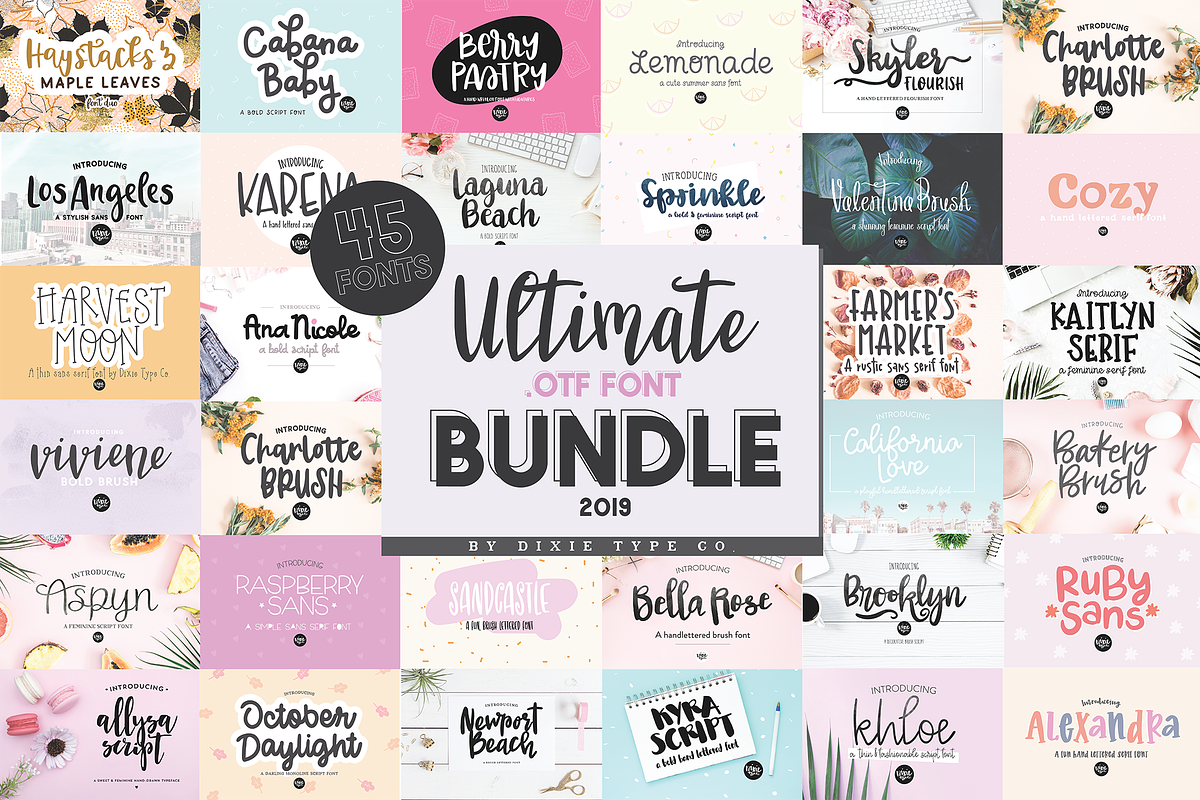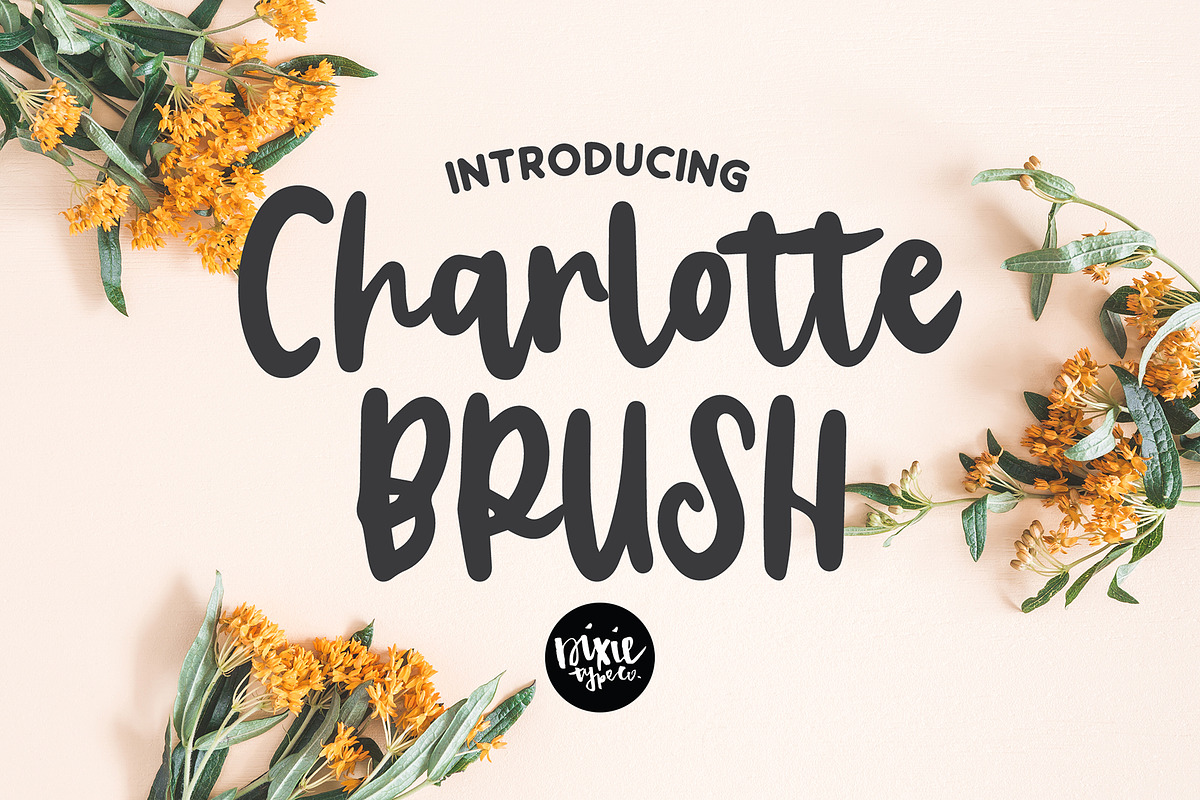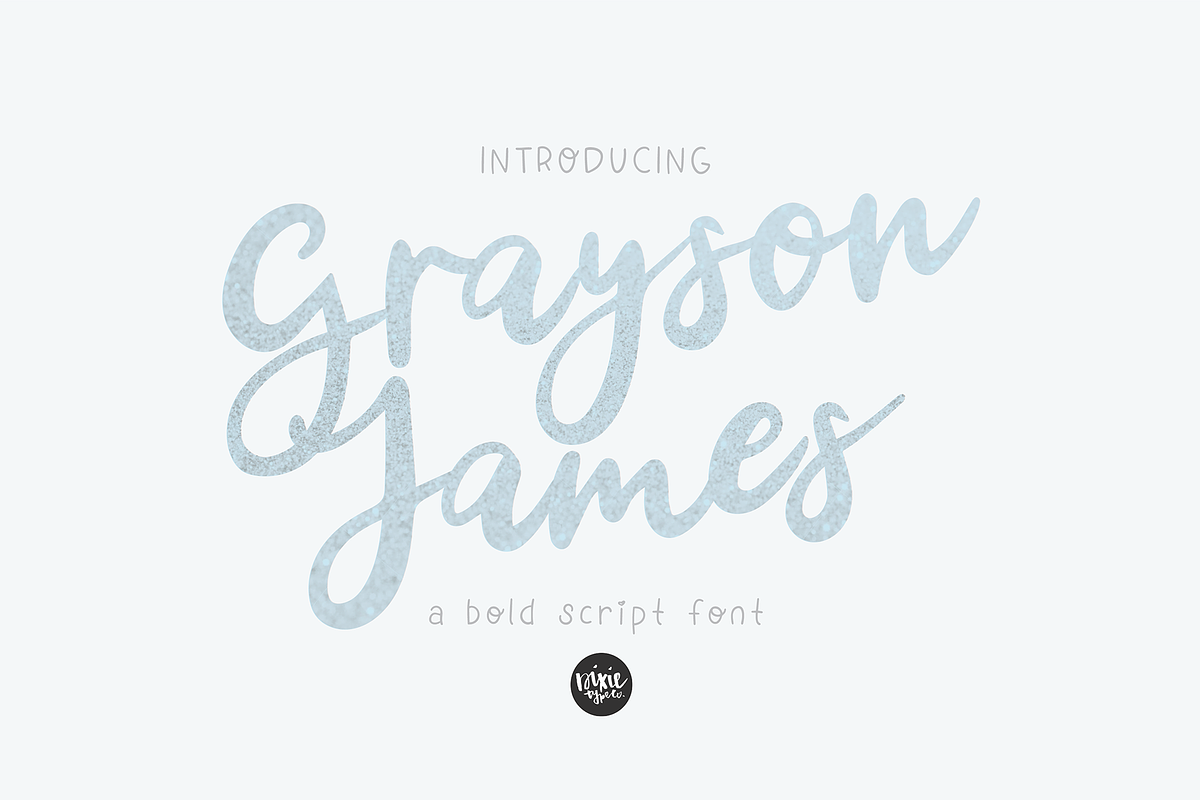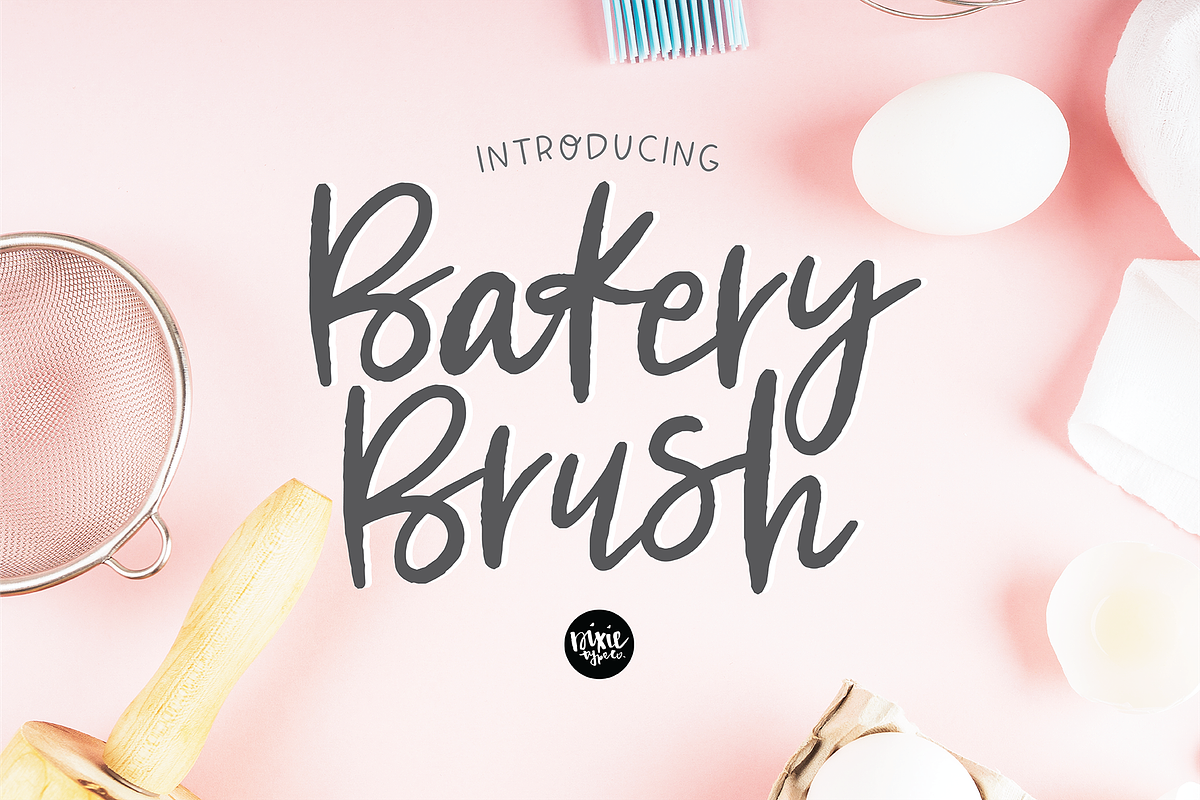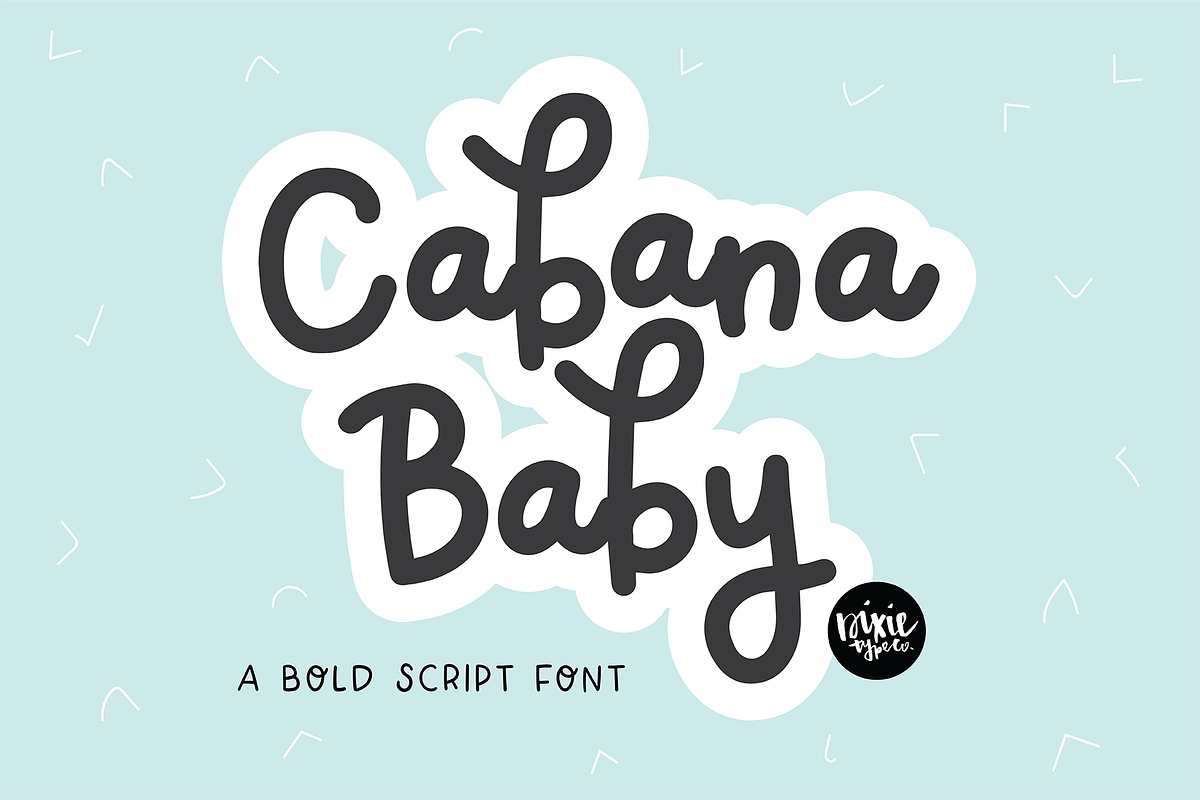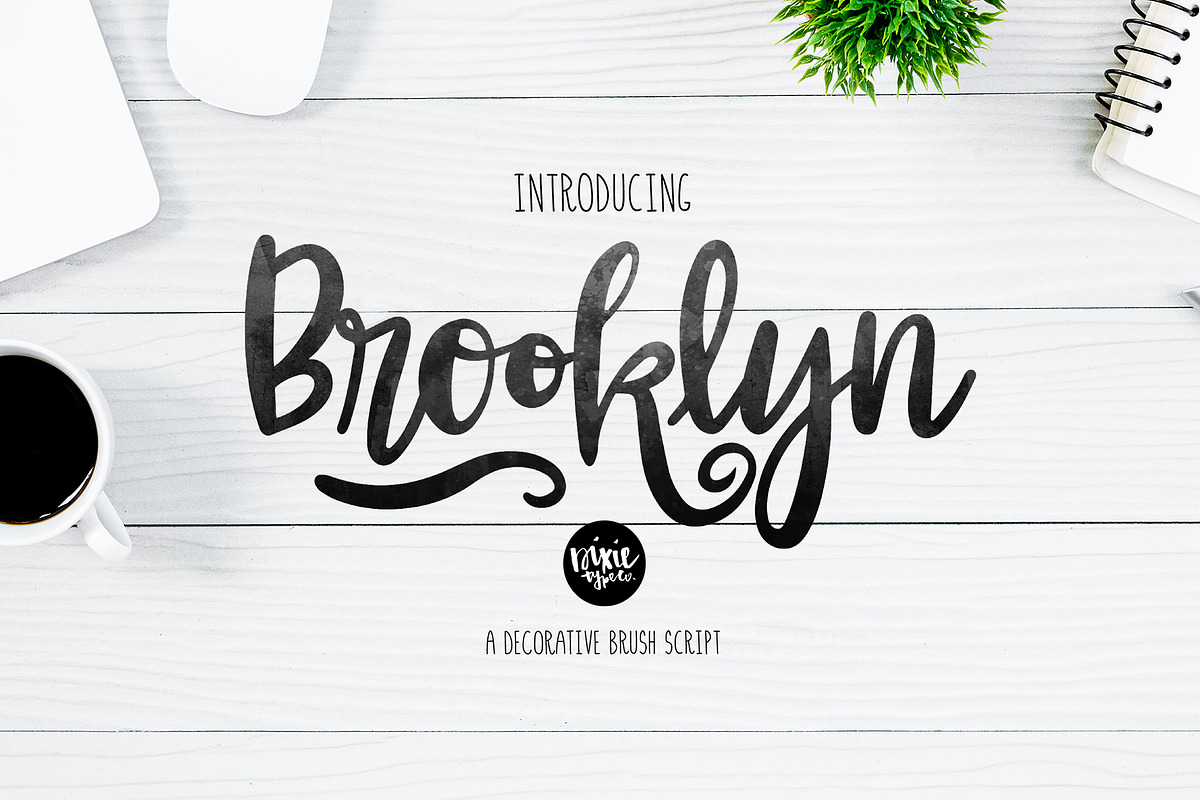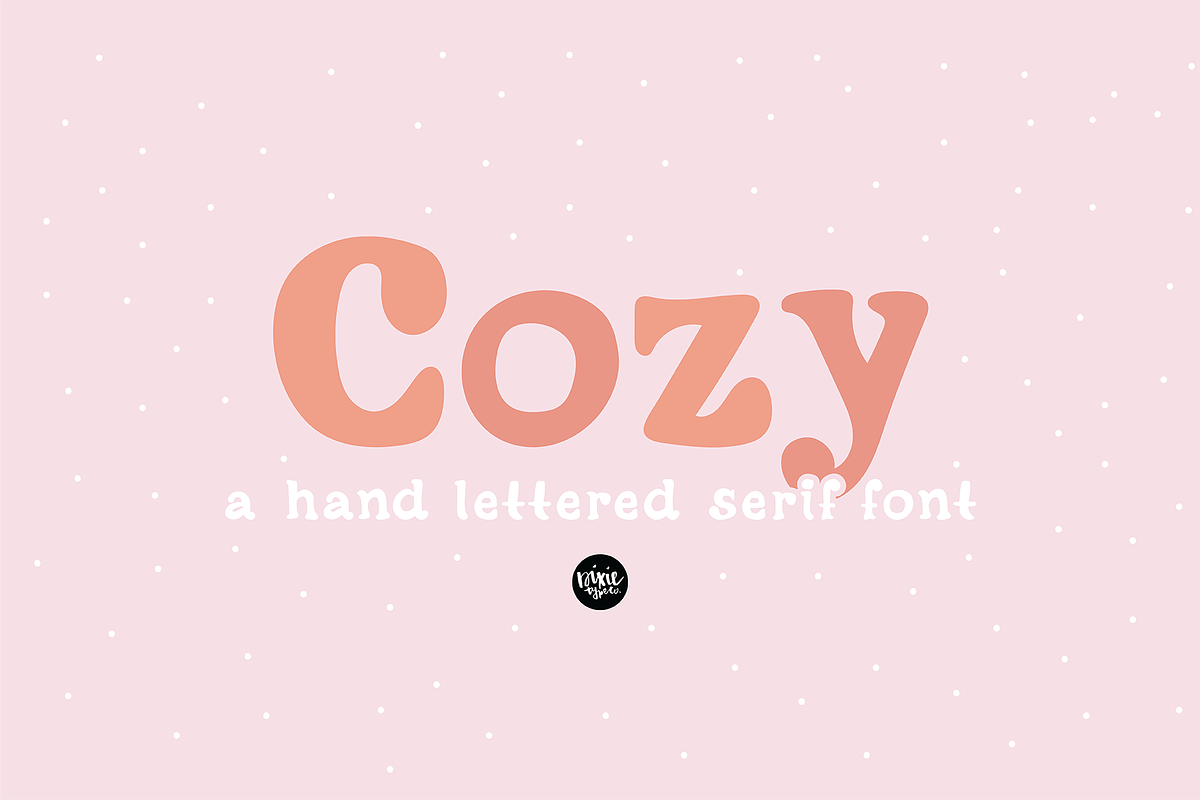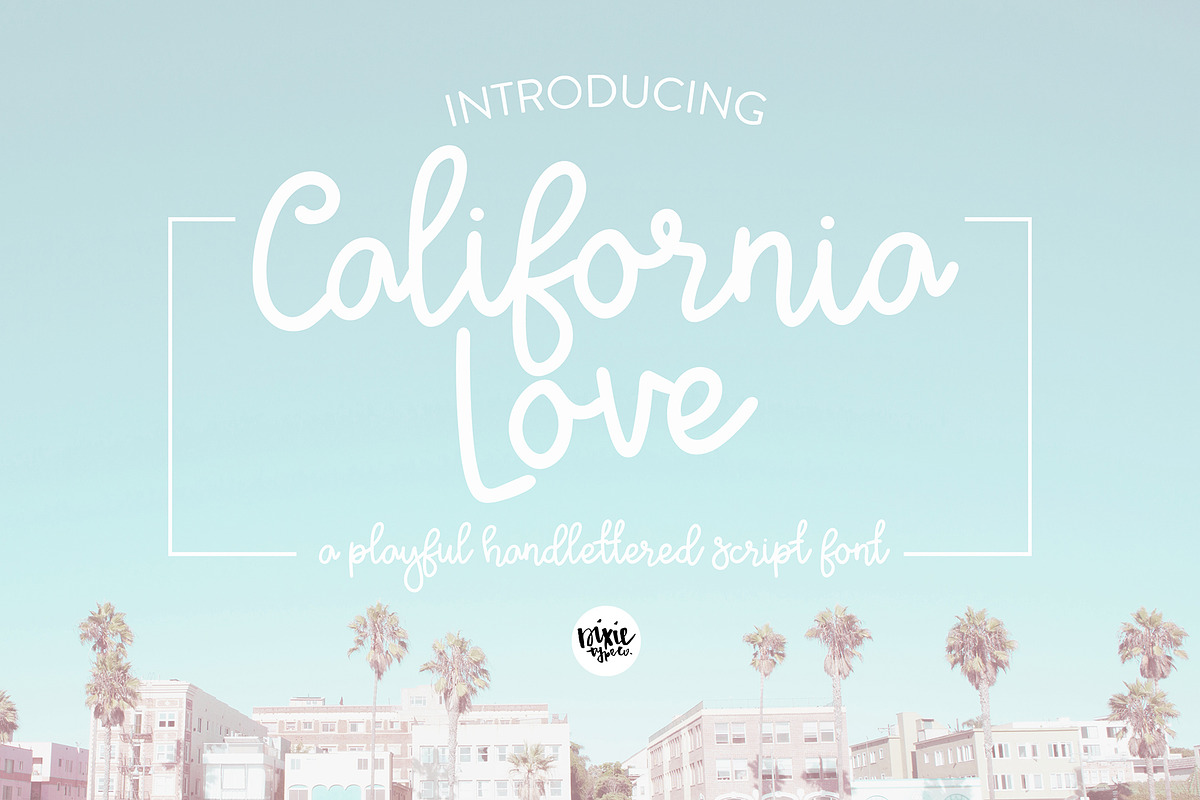
ULTIMATE .OTF FONT BUNDLE - 45 FONTS
These fonts were all hand lettered with a brush and ink, or iPad Pro.
Afterglow Alexandra Allysa Script Ana Nicole Aspyn Bakery Brush Bella Rose Berry Pastry Blossom Brush Bronx Party Brooklyn Cabana Baby California Love Charlotte Chey Brush Coralee Cozy Farmers Market Golden Days Grayson James Hadley Brush Harvest Moon Haystacks Honeymoon Kaitlyn Serif Karena Khloe Kyra Laguna Beach Lemonade Script Los Angeles Maple Leaves Newport Beach October Daylight Okra Sans Raspberry Sans Rose Rowan Sans Ruby Sans Sandcastle Skyler Flourish Sprinkle Valentina Brush Viviene